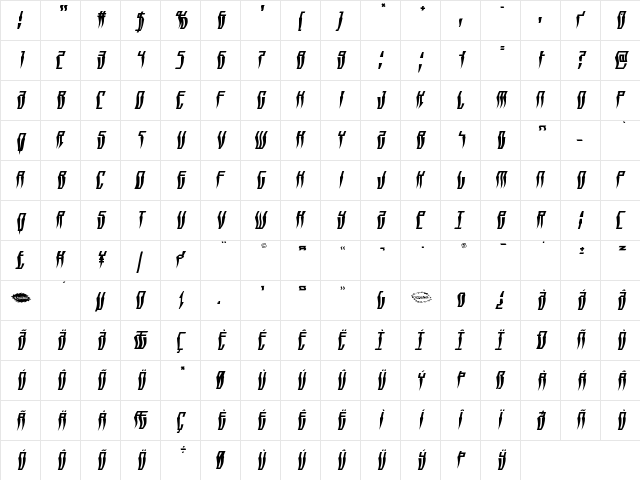
Swordtooth Warped Italic Italic
Design Context for Swordtooth Warped Italic Typeface
Swordtooth Warped Italic is a composed and adaptable typeface that performs quietly and consistently across a wide range of design contexts. Its italic angle brings a sense of urgency and motion to the letterforms.
Pro Tip: Try Swordtooth Warped Italic for annotation and caption copy alongside an upright companion — the contrast in angle creates a dynamic but ordered typographic system.